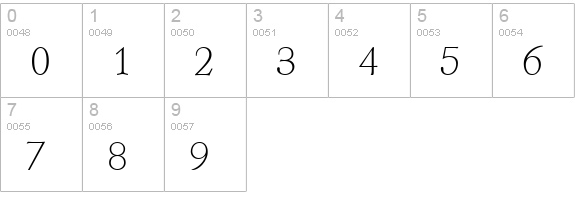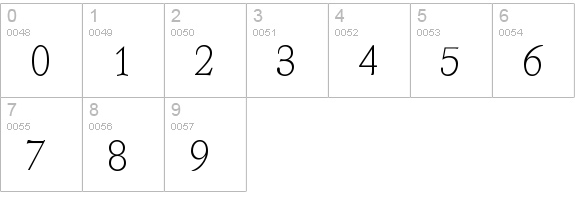
Deutch Light SSi Light is a refined, elegant variant in the Deutch typeface family \xE2\x80\x94 well suited to elegant body text, refined sub-headings, and luxury branding.
Deutch Light SSi Light font is a modern and sleek typeface that exudes elegance and sophistication. With its clean lines and minimalist design, this font is perfect for a wide range of design projects, from branding to editorial layouts. The soft curves and subtle serifs give it a timeless appeal that is both versatile and easy on the eyes. The best part about Deutch Light SSi Light font is that it is completely free to download. You can access this stylish font at FontsMarket.com without any cost, making it a fantastic resource for designers and creatives looking to elevate their work with a high-quality typeface. Don't miss out on the opportunity to add this beautiful font to your collection and take your designs to the next level.